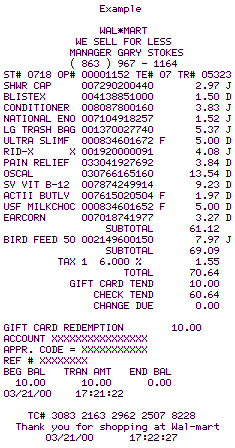
Receipt is based on that bitmap font they use on receipt printers. It simulates the printer appearance of those tiny printers by using little dots for each pixel.